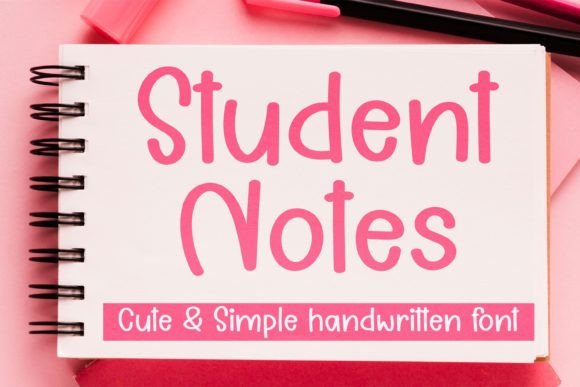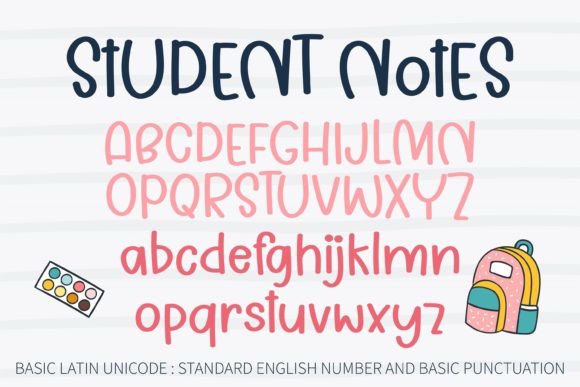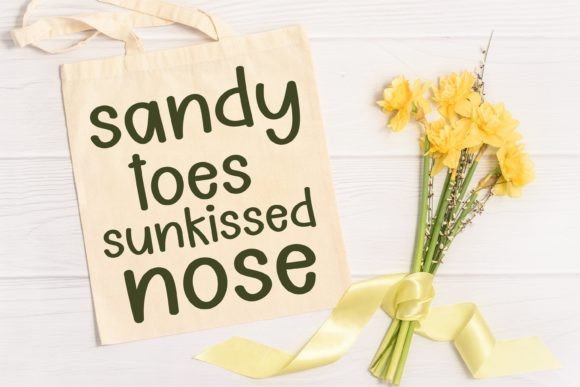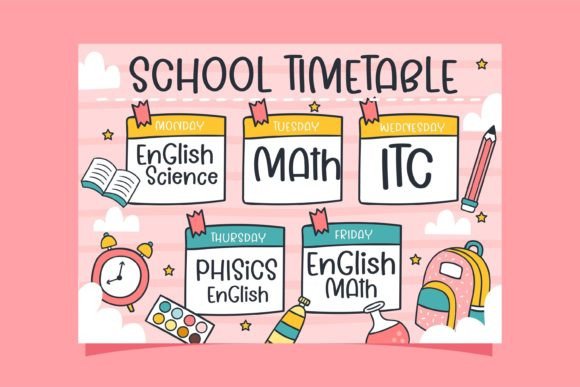
About Student Notes Font
Student Notes is a cool, friendly, and informal handwritten font designed to bring an authentic touch to your chalkboard quotes or teaching material. Its laid-back and genuine appearance adds a personal and realistic feel to your designs, making it a perfect choice for educational content.
The cool and friendly demeanor of Student Notes makes it an excellent fit for a variety of applications, especially when you want to create a casual and approachable atmosphere. Whether used for chalkboard quotes, teaching materials, or any educational content, this font adds a touch of authenticity and relatability.
Picture Student Notes enhancing the visual appeal of chalkboard quotes, where its handwritten style contributes to the charm and character of the message. The font’s informal look creates a connection with the audience, making the quotes more engaging and relatable.
For teaching materials, Student Notes adds a realistic feel, as if the content has been handwritten on a chalkboard. This authenticity contributes to a genuine and personal touch, making the material more accessible and appealing to students.
The handwritten charm of Student Notes ensures that it maintains a laid-back and approachable vibe, making it suitable for conveying information in an informal yet engaging manner. Whether applied to presentations, handouts, or any educational resource, this font adds a touch of warmth and friendliness.
In conclusion, Student Notes is more than just a font; it’s a design asset crafted to bring a cool and friendly authenticity to your educational projects. Elevate your chalkboard quotes, teaching materials, and more with the personal and realistic feel that Student Notes provides, creating an inviting and relatable learning experience.